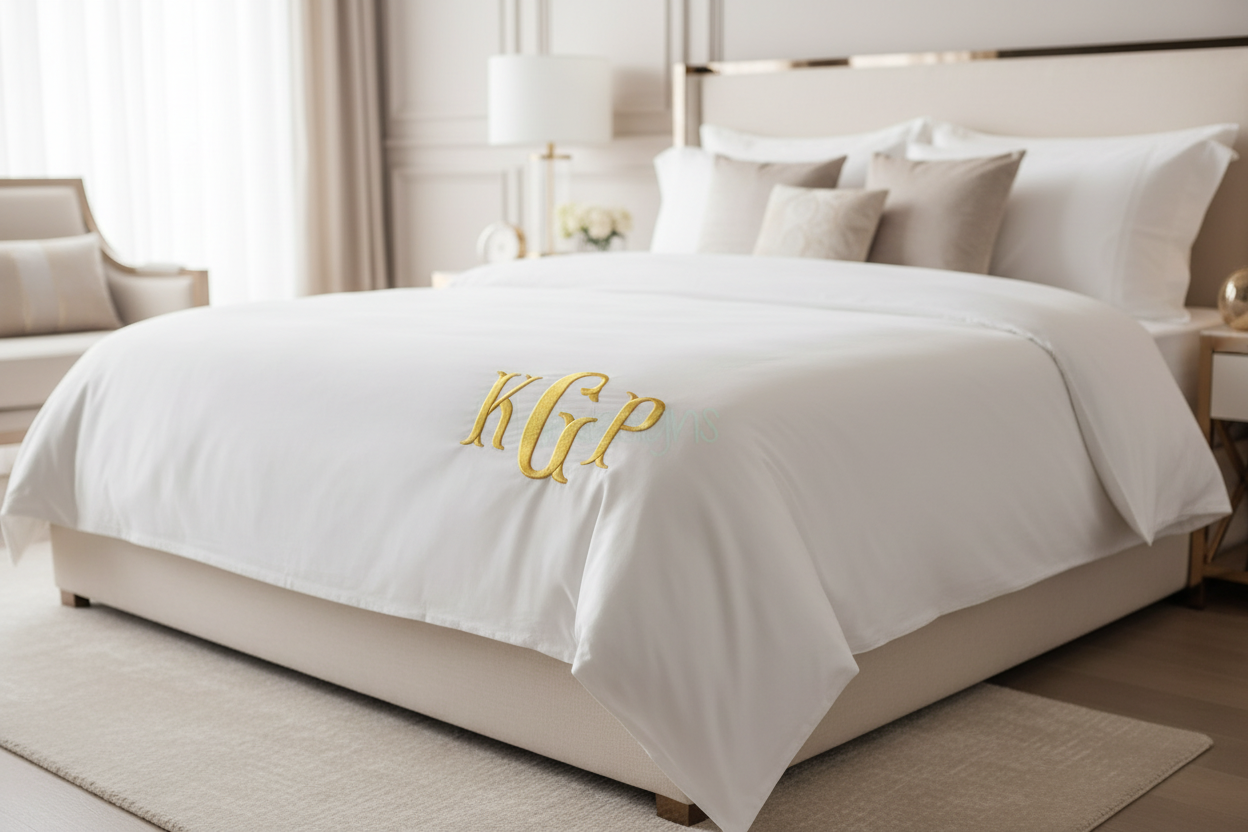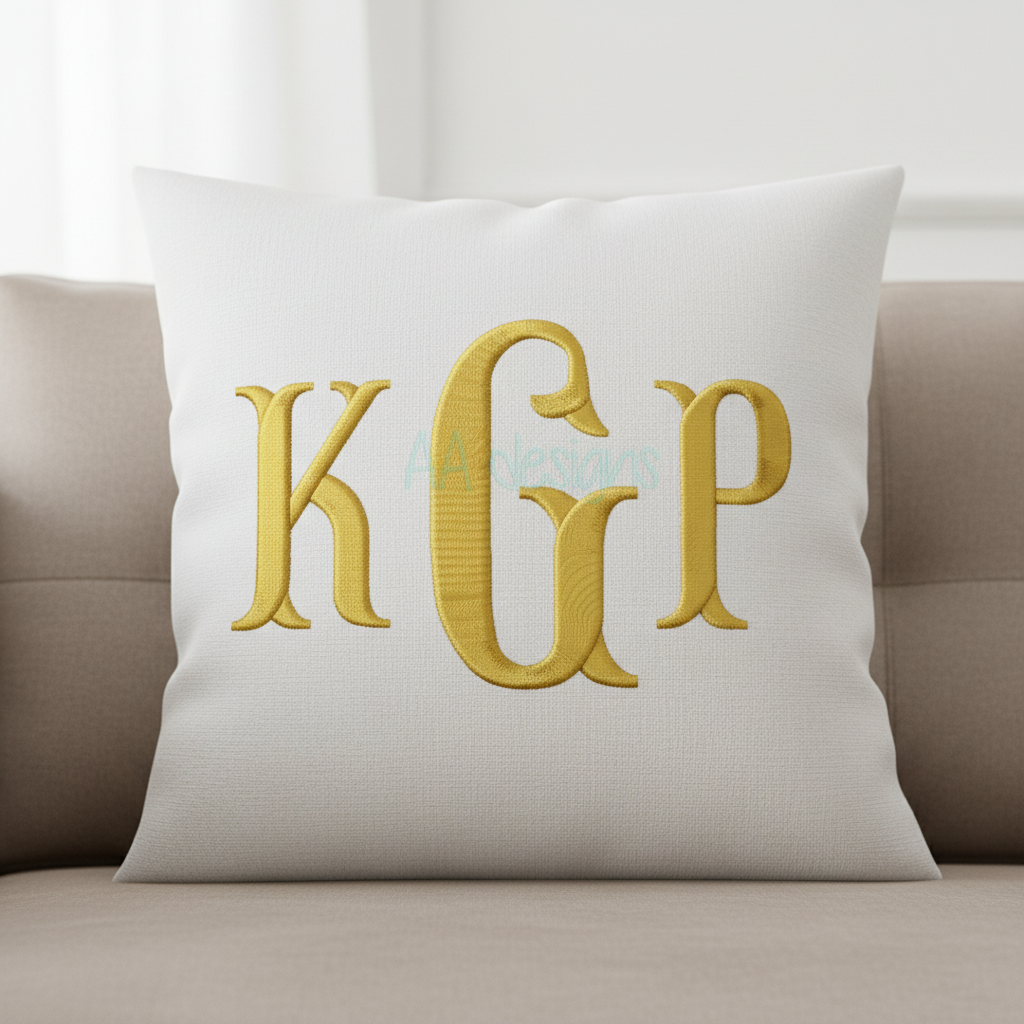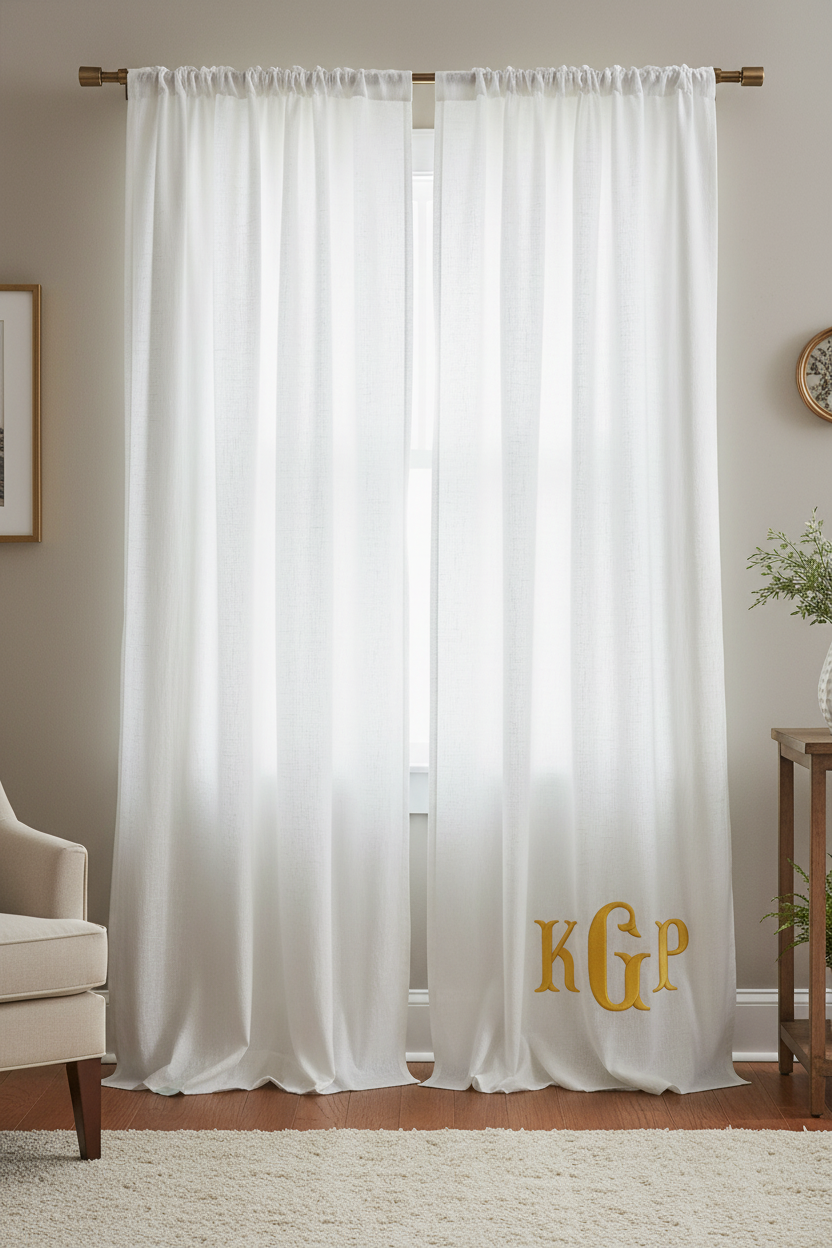
About This Font
The Fishtail Monogram embroidery font is an elegant serif alphabet designed specifically for 3-letter monogramming. With its distinctive fishtail serifs and refined proportions, this font brings a timeless, classic look to home décor, linens, gifts, and personalized accessories. Each letter set includes Left, Center, and Right positions — ready for traditional monogram layouts where the center letter is larger.
Picture a set of crisp white pillowcases monogrammed in gold thread with flowing fishtail letters, or a luxurious throw blanket personalized for a wedding gift — the Fishtail Monogram font delivers that heirloom quality that never goes out of style.
Perfect For
• Decorative pillows and pillow covers
• Curtains, drapes, and window treatments
• Blankets, throws, and bedding
• Towels and bath linens
• Wedding gifts and bridal accessories
• Tote bags and personalized accessories
• Robes and monogrammed apparel